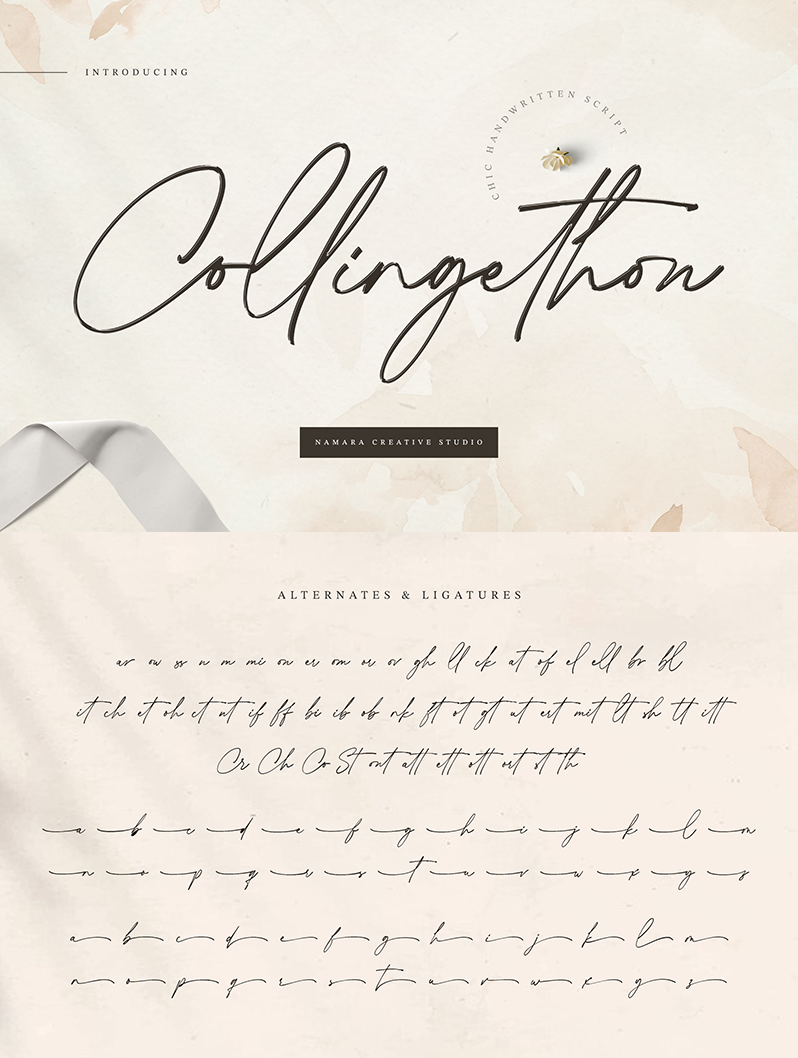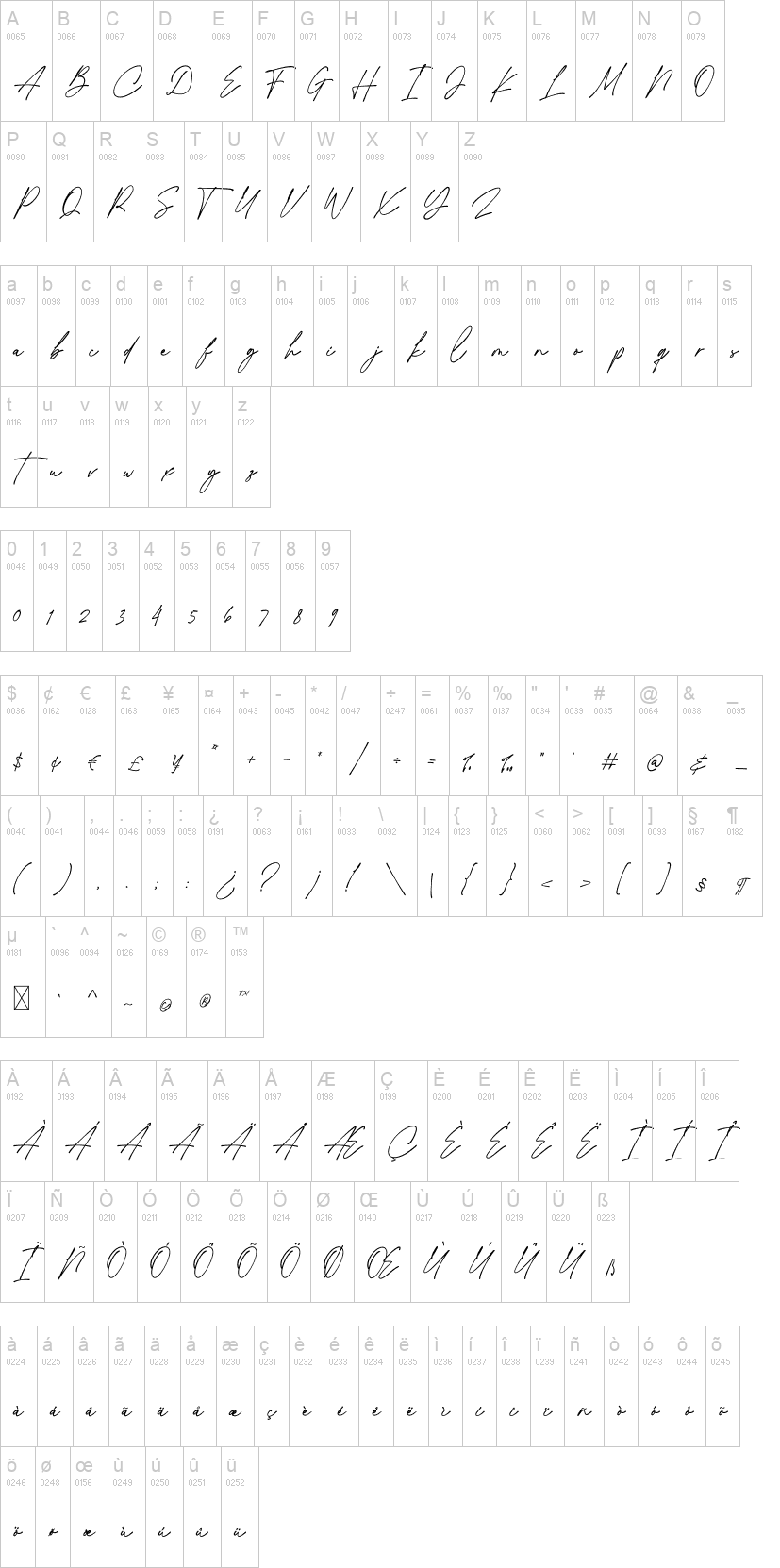
Collingethon
Note of the authorChic handwritten script font with a calligraphy flair, Perfect for creating handwritten-style logos, wedding stationery, photographer watermarks and more.